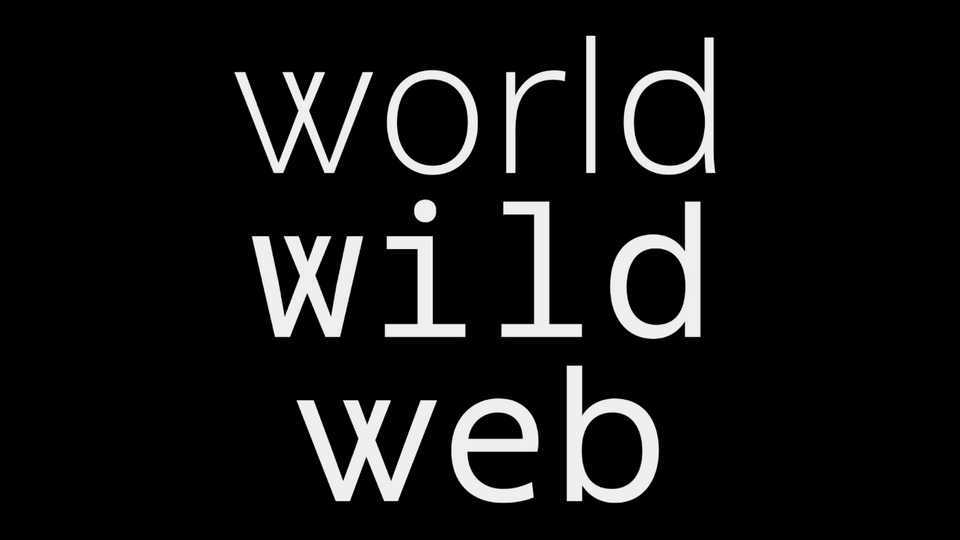
Download Roadiz Sans typeface, a font family in three weights and Monospaced for back office and coding. Roadiz Sans designed to be highly readable in lines of code, with bigger punctuation, slashed zero, middle asterisk, stronly slanted slash, etc.